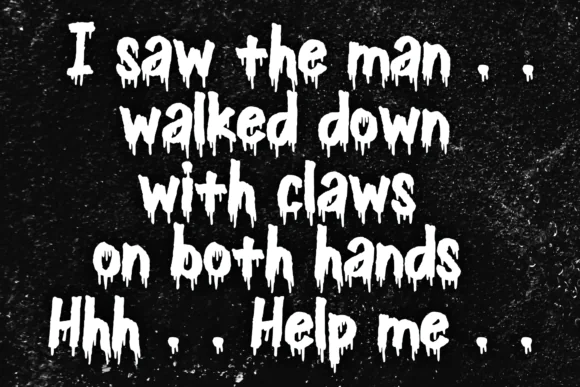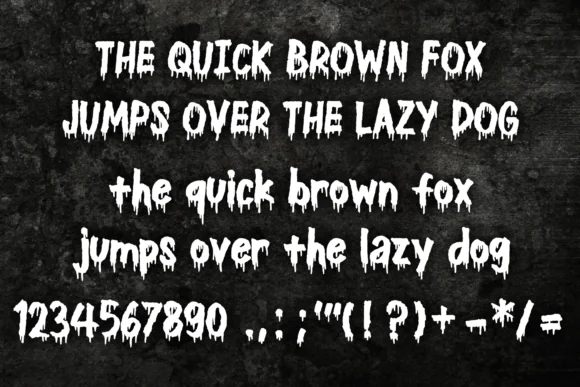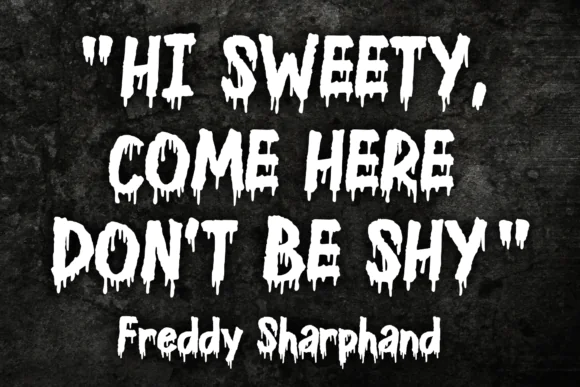
Dripping Halloween Font | Horror Drip Display Font for Halloween T-Shirts, Posters, Stickers, Book Covers, Party Designs & Scary Merchandise
Create bold, creepy, and unforgettable Halloween designs with Dripping Halloween Font, a cool ink-drip horror display font inspired by vintage horror movies, horror comics, and metal music. This font is designed to bring a strong spooky atmosphere to your creative projects with its dramatic dripping effect.
The dripping style can resemble blood, slime, ink, or melting liquid, making it perfect for horror-themed designs, scary Halloween artwork, gothic graphics, haunted party materials, and bold merchandise designs. Its exaggerated display style helps your text stand out instantly, especially in posters, t-shirt graphics, banners, book covers, stickers, and seasonal promotional designs.
Dripping Halloween Font is a great choice for designers, crafters, small business owners, and digital product sellers who want to create dark, scary, and attention-grabbing Halloween products.
• Halloween t-shirt designs
• Horror posters and banners
• Scary book covers
• Halloween party invitations
• Greeting cards
• Stickers and labels
• Clothing and merchandise
• Haunted house graphics
• Metal music-inspired designs
• Sublimation projects
• Cricut and Silhouette crafts
• Digital and printable Halloween artwork
• Cool dripping horror font style
• Inspired by vintage horror movies and horror comics
• Strong blood, slime, or melting liquid effect
• Perfect for Halloween and scary designs
• Great for merchandise, posters, stickers, and book covers
• Bold display font that grabs attention quickly
• Adds a creepy, dramatic, and horror-themed look to any project
Dripping Halloween Font is ideal for creating spooky, dark, and high-impact Halloween designs that need a frightening visual style and bold horror personality.